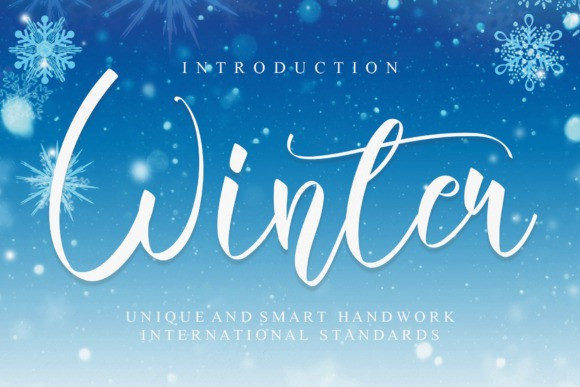
Winter Calligraphy Font
Winter is a creative and frosty handwritten font. With an elegant and sleek style, this typeface would be a great asset to your fonts library as it can enhance any creation!